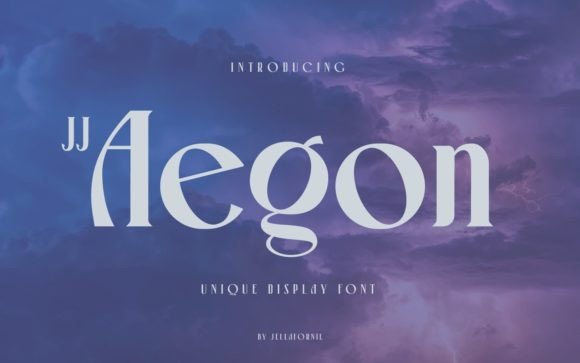
Dive into a world of visual charisma with JJ Aegon Font, the pinnacle of elegance and vintage charm. Its tall, slender frame and rounded contours evoke a timeless appeal that will captivate your audience.
Picture your brand adorned with JJ Aegon's stately presence, its graceful lines leaving an unforgettable mark on your audience. The logos, labels, and quotes you create will exude a captivating aura of heritage and modernity.
This masterpiece is meticulously crafted to evoke a sense of poise, elegance, and maturity. Its every curve and stroke whispers a tale of timeless sophistication.
Imagine the impact of your ingredient labels adorned with the allure of JJ Aegon. Its vintage charm will draw the eye, inviting customers to indulge in the story behind your products.
Let JJ Aegon elevate your designs to new heights, transforming them into captivating masterpieces that resonate with your audience on an emotional level.
Immerse yourself in the enchanting world of JJ Aegon Font and discover the power to craft visual experiences that leave a lasting impression.